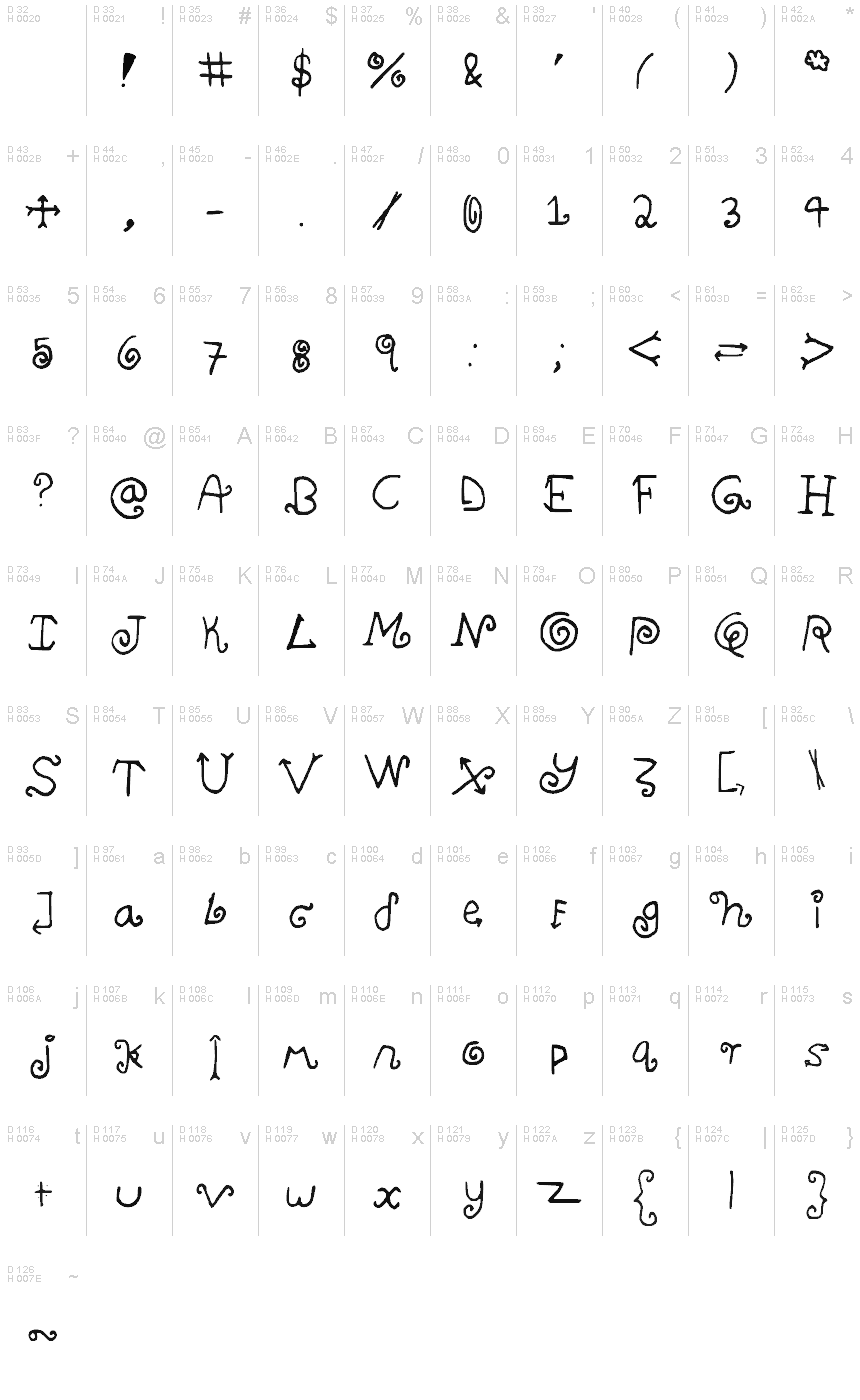
NevermindMe
"Nevermind Me" is a delightfully whimsical font that exudes a sense of playfulness and individuality. Its curling, light strokes evoke a handwritten aesthetic, infusing any design with a touch of personal charm. The distinctive, flowing letters effortlessly capture the font creator's own handwriting, allowing users to incorporate a unique, heartfelt element into their projects.
From invitations to branding, "Nevermind Me" seamlessly adapts to a variety of design contexts, lending a warm, expressive character that sets it apart. This font's versatility makes it an invaluable asset for those seeking to cultivate a genuine, human-centered aesthetic in their work.